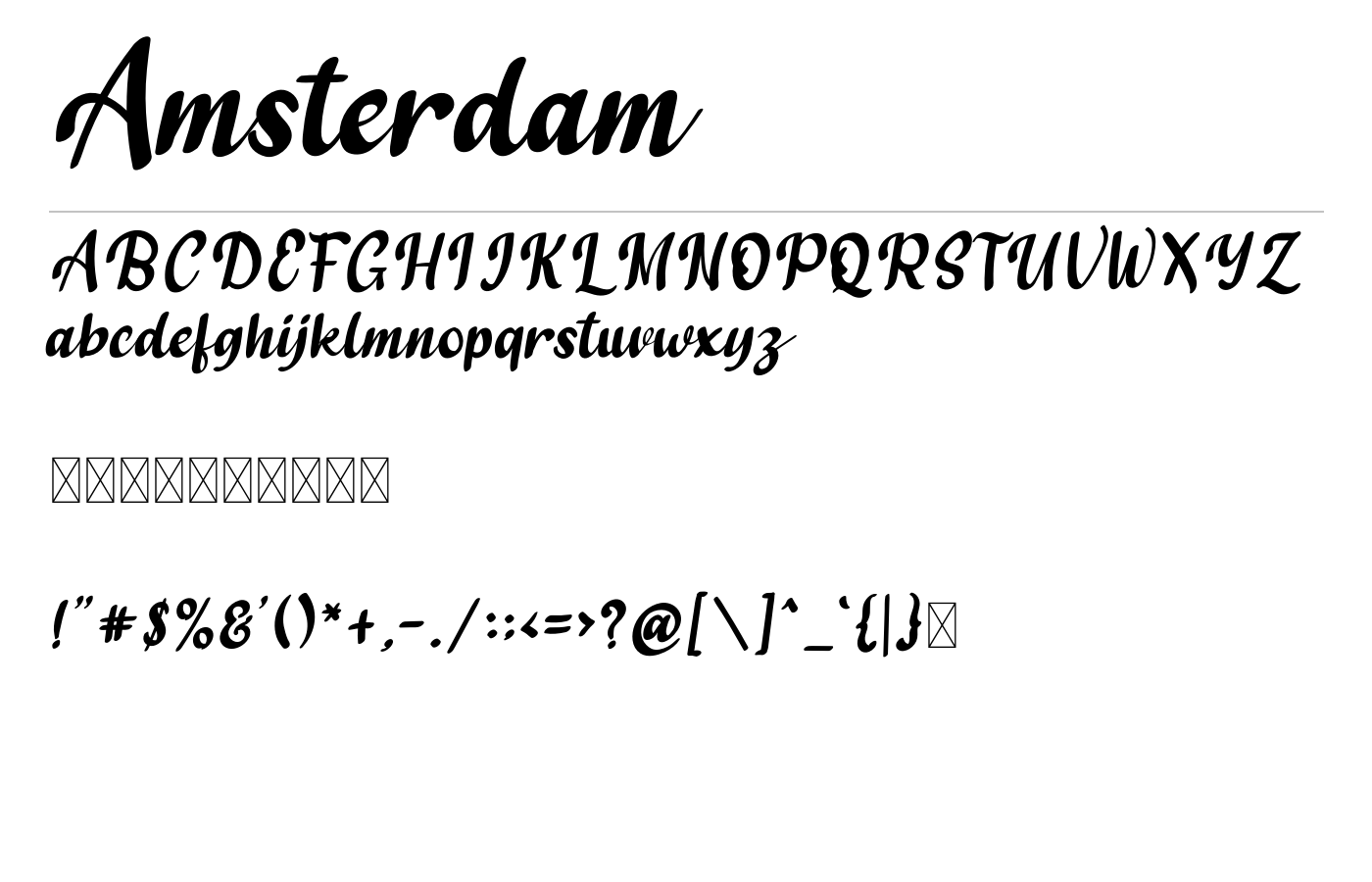
Amsterdam Font is a lively and elegant script typeface with smooth, flowing strokes that give it a warm, handcrafted feel. Its moderately high contrast and fluid letterforms make it perfect for creative branding, invitations, and headlines where a friendly yet sophisticated look is desired. This font works well for projects that want to convey charm and personality with a touch of classic style.
Amsterdam Font